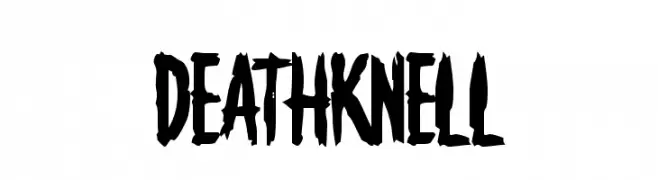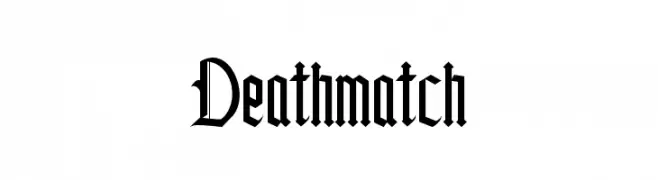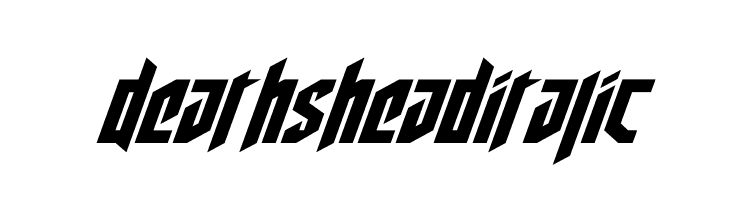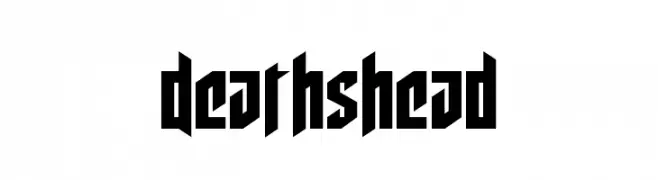
A bold, distressed font with a grunge texture and rugged appearance.
A bold, gothic Blackletter font with intricate, angular designs.
A bold, gothic-style font with intricate details and dramatic curves.
A bold, brush-style font with sharp, jagged edges and dynamic flow.
A bold, edgy font with sharp, dynamic strokes and a graffiti-like style.
A hand-drawn, sketch-like font with tall, narrow characters and an artistic feel.
A bold, angular, gothic-inspired font with a dramatic and intense style.
A bold, angular Gothic-inspired font with sharp edges and thick strokes.